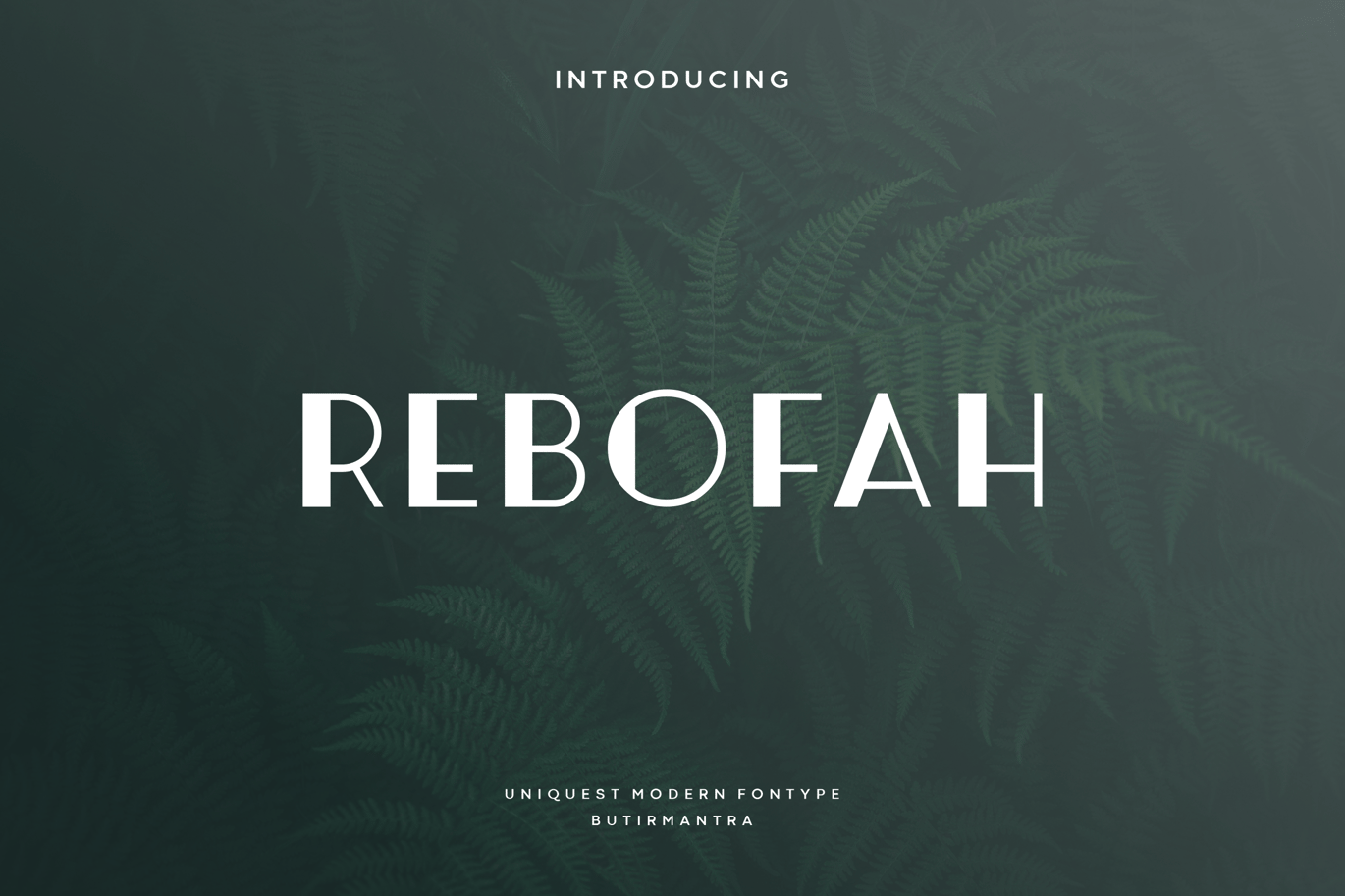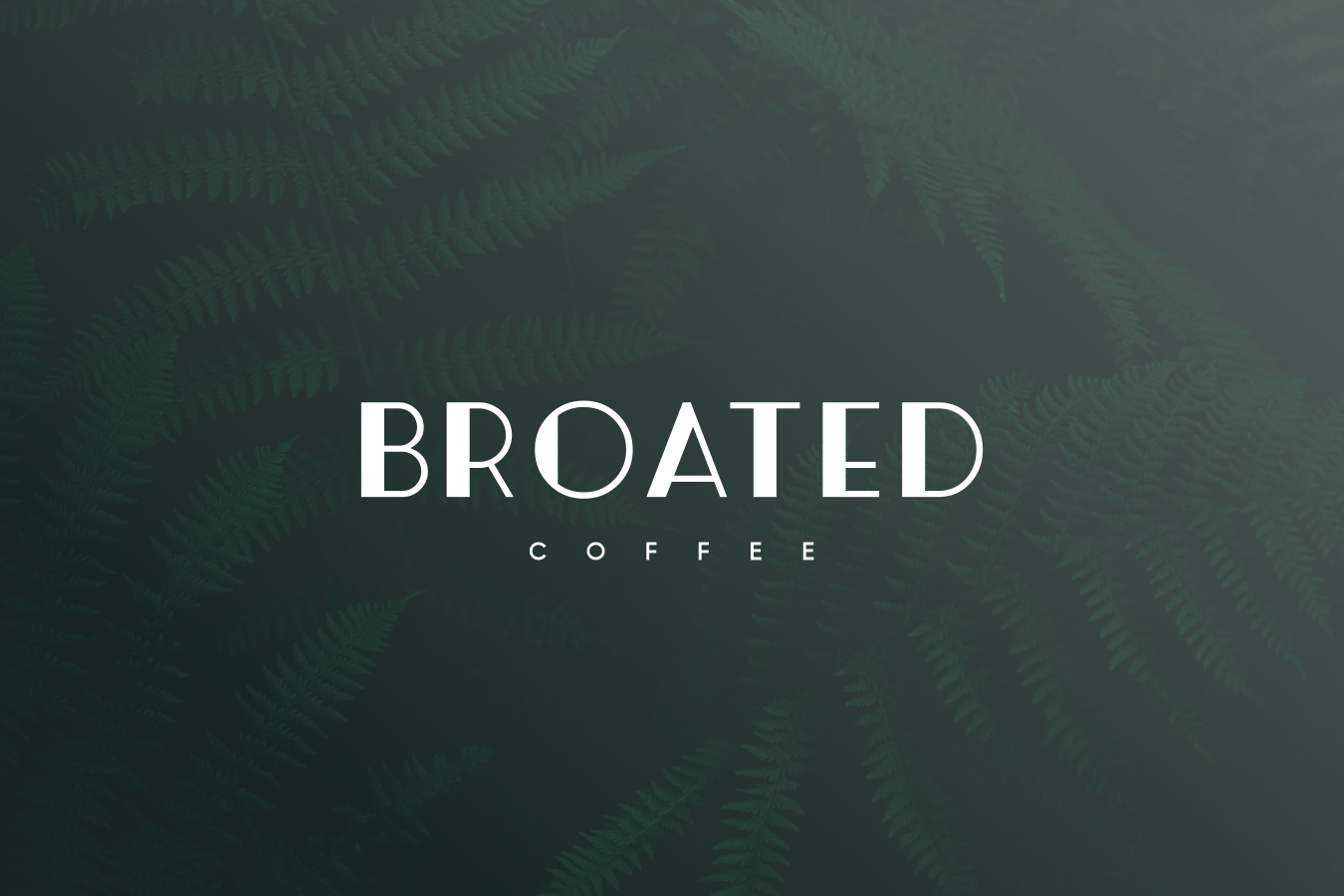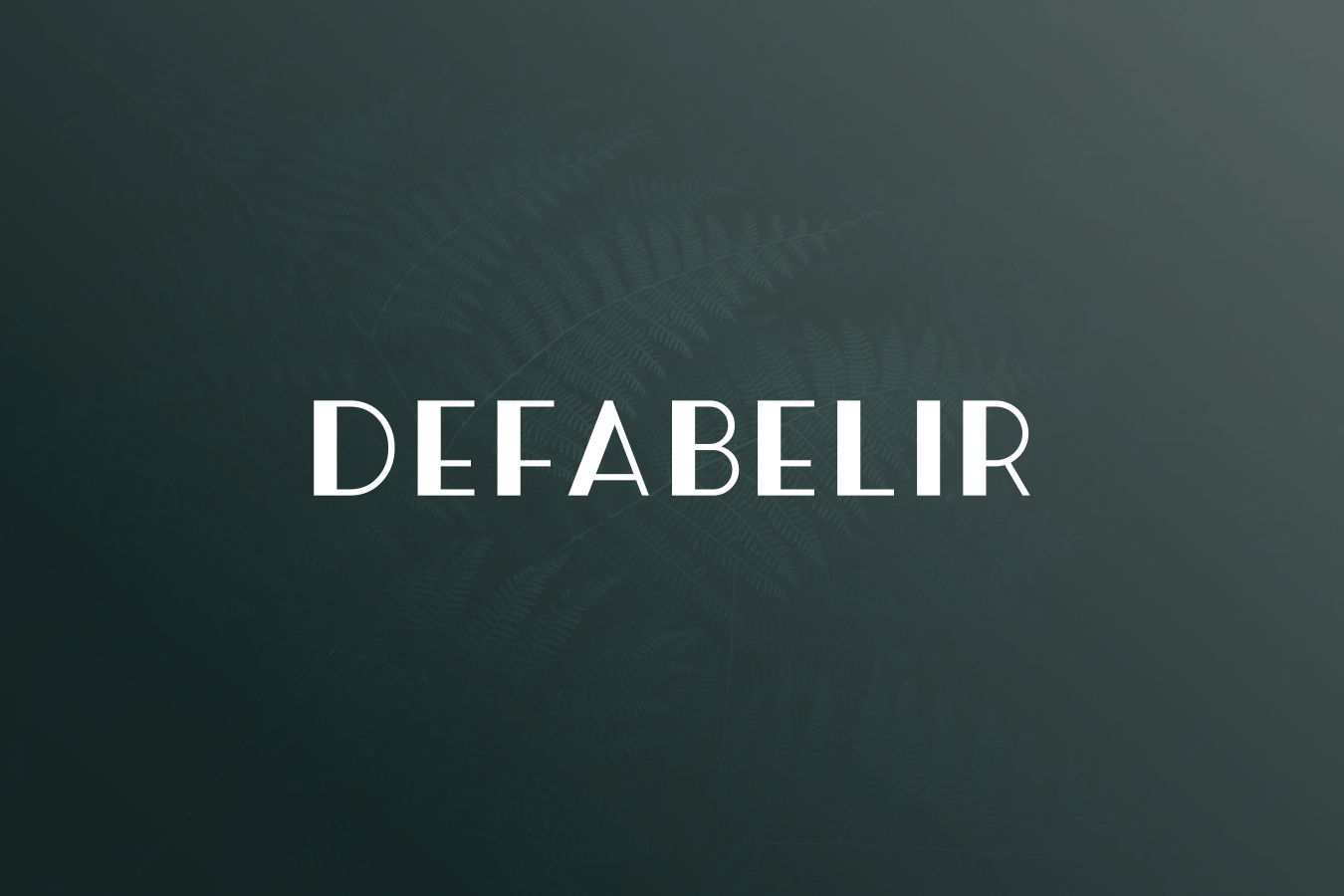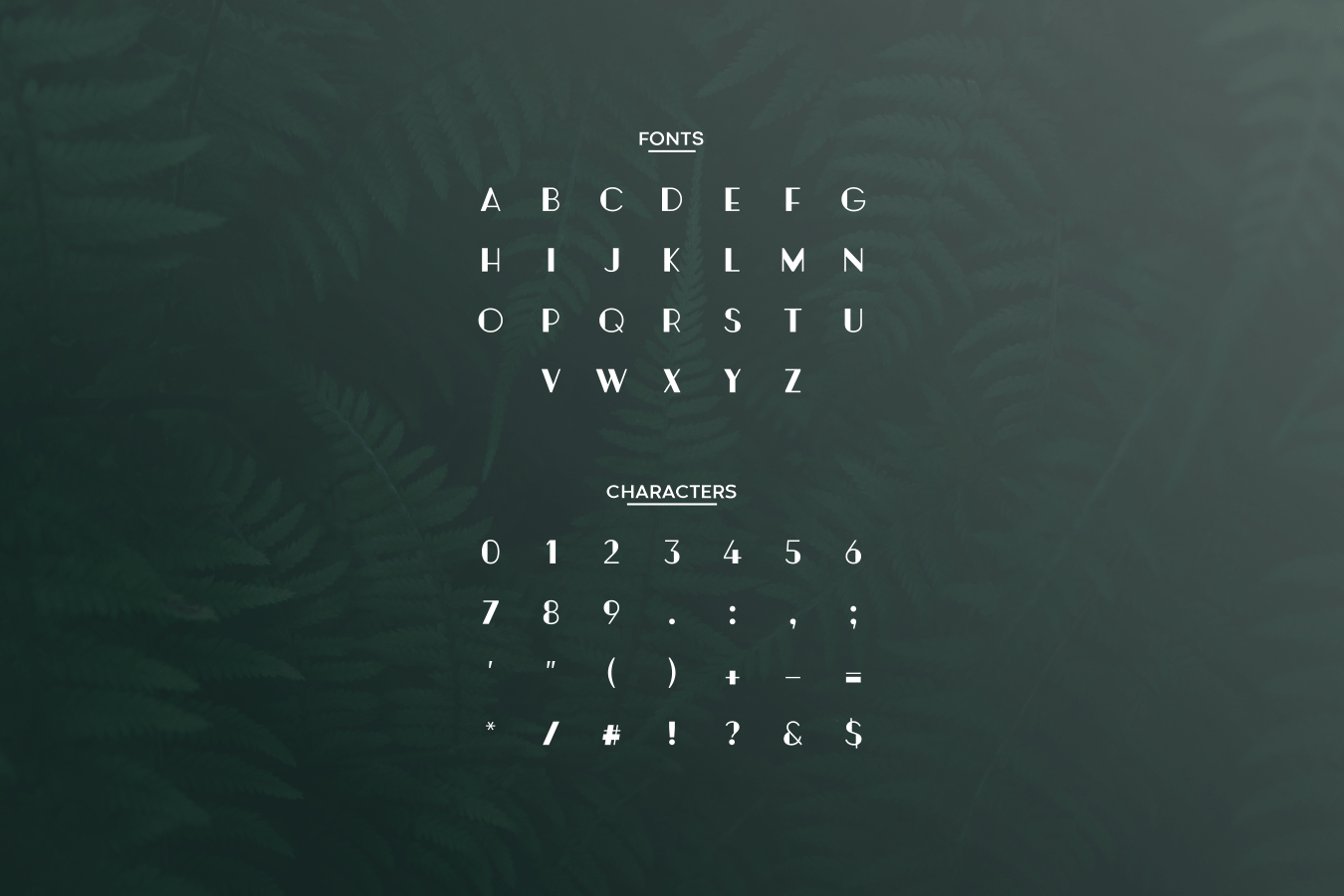
Rebofah – Feminine Font
Rebofah font is display font with a unique style with little improvisation on uppercase mode, although these fonts are all uppercase fonts. This font is perfect for something related to food, illustrations, book titles, website title, writing on video, or anything you can try to gain experience in graphic design needs.